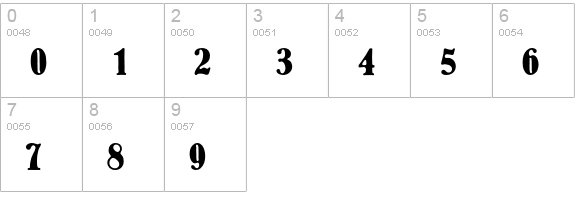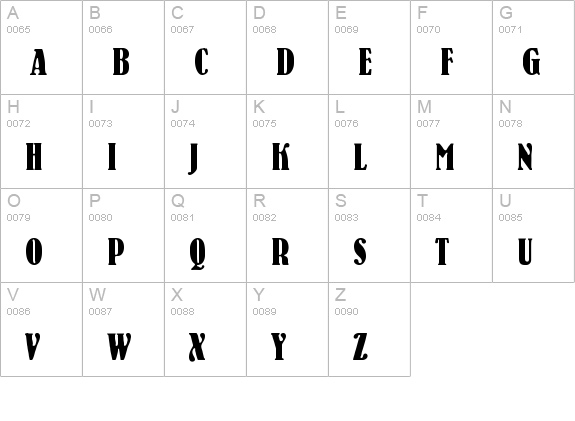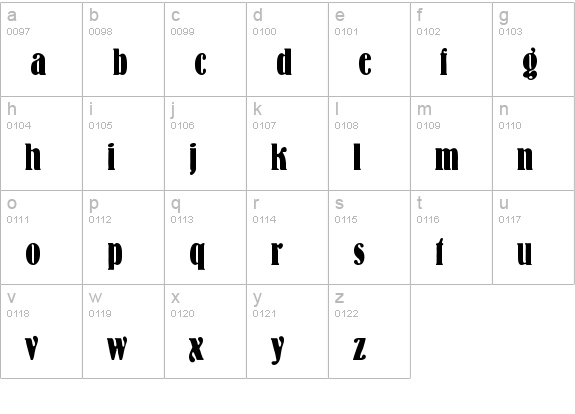
BernhardEF-Antique Font Details
BernhardEF-Antique font is a timeless and elegant typeface that exudes sophistication and charm. With its vintage-inspired design and classic serifs, this font is perfect for adding a touch of old-world elegance to your projects. Whether you're designing invitations, branding materials, or editorial layouts, BernhardEF-Antique is sure to make a lasting impression. The best part? BernhardEF-Antique font is available for free download at FontsMarket.com. Embrace the beauty of this exquisite font and elevate your designs with its luxurious character and distinctive style. Let BernhardEF-Antique font transport your audience to a bygone era of refinement and grace.